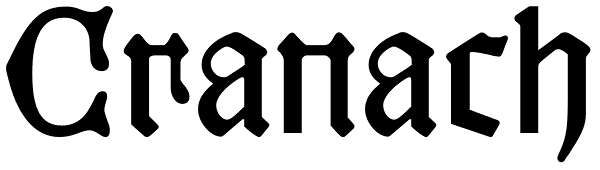
Cranach
This picturesque, beautiful German Blackletter typeface was originally released by Benjamin Becker Succ, Frankfurt am Main, then named ‘Künstlergotisch’. Ralph M. Unger redesigned, digitally remastered and completed the font based on old...